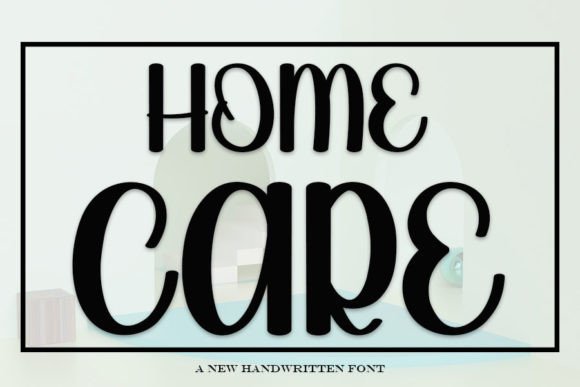
Welcome to the world of Home Care Font, a captivating script that exudes elegance and charm, inviting you to embark on a creative journey like no other. Step into a realm where your designs come alive with a touch of sophistication and a timeless appeal that resonates with hearts. Home Care Font is not just a font; it's an expression of individuality, a reflection of your unique style that deserves to shine.
Crafted with meticulous care and attention to detail, Home Care Font boasts a captivating allure that draws the eye and captivates the senses. Its smooth, flowing lines dance across the page, creating a visual symphony that commands attention. Whether you're designing wedding invitations, branding materials, or heartfelt messages, Home Care Font becomes an extension of your creative vision, enhancing your designs with a touch of magic.
Experience the versatility of Home Care Font, seamlessly adapting to a myriad of projects. Its graceful script adds a touch of elegance to logos and branding, while its playful charm enchants invitations and greeting cards. Unleash your creativity and explore the endless possibilities, transforming your designs into masterpieces that captivate and inspire.
Immerse yourself in the world of Home Care Font, where beauty meets functionality. Its carefully crafted characters provide flawless readability, ensuring your message shines through with clarity and impact. Whether you're crafting digital designs or creating physical masterpieces, Home Care Font delivers exceptional results, leaving a lasting impression on your audience.
Don't let ordinary fonts hold you back. Embrace the transformative power of Home Care Font and witness the remarkable difference it brings to your designs. Its timeless charm and emotional appeal make it the perfect choice for those seeking to make a statement, to create designs that resonate and leave an unforgettable mark.